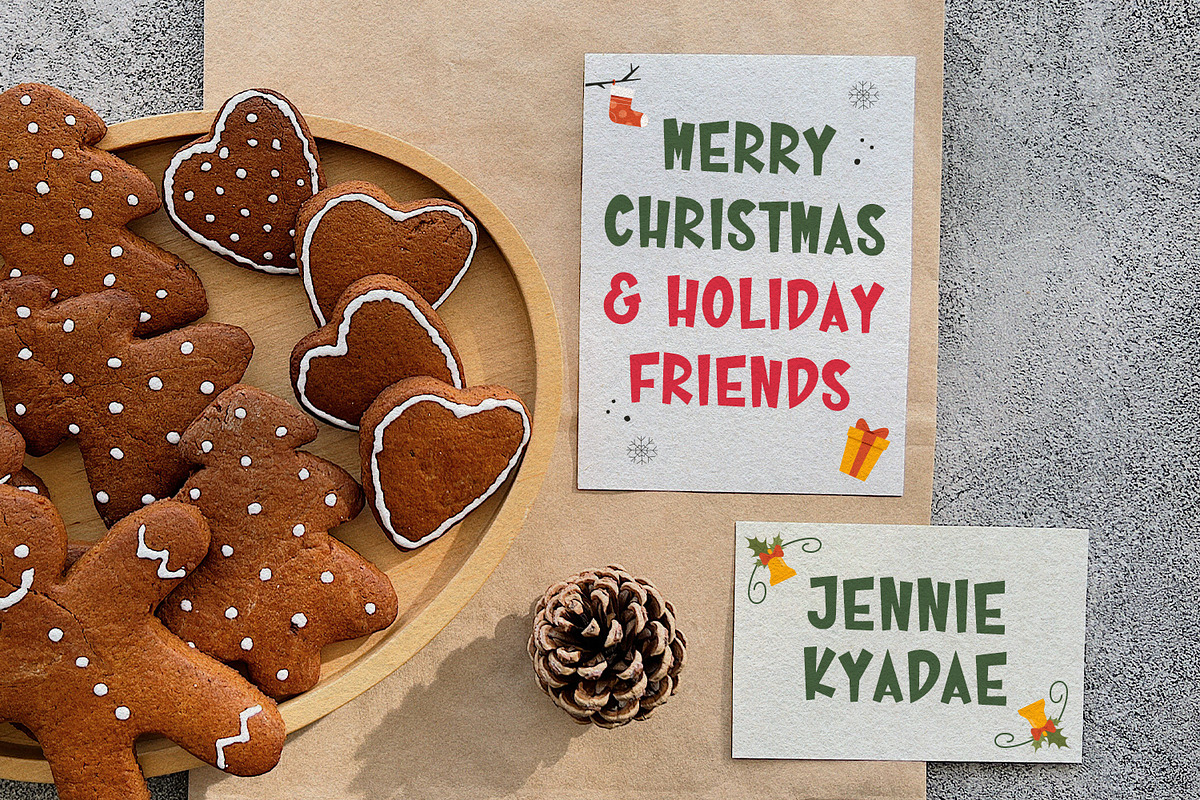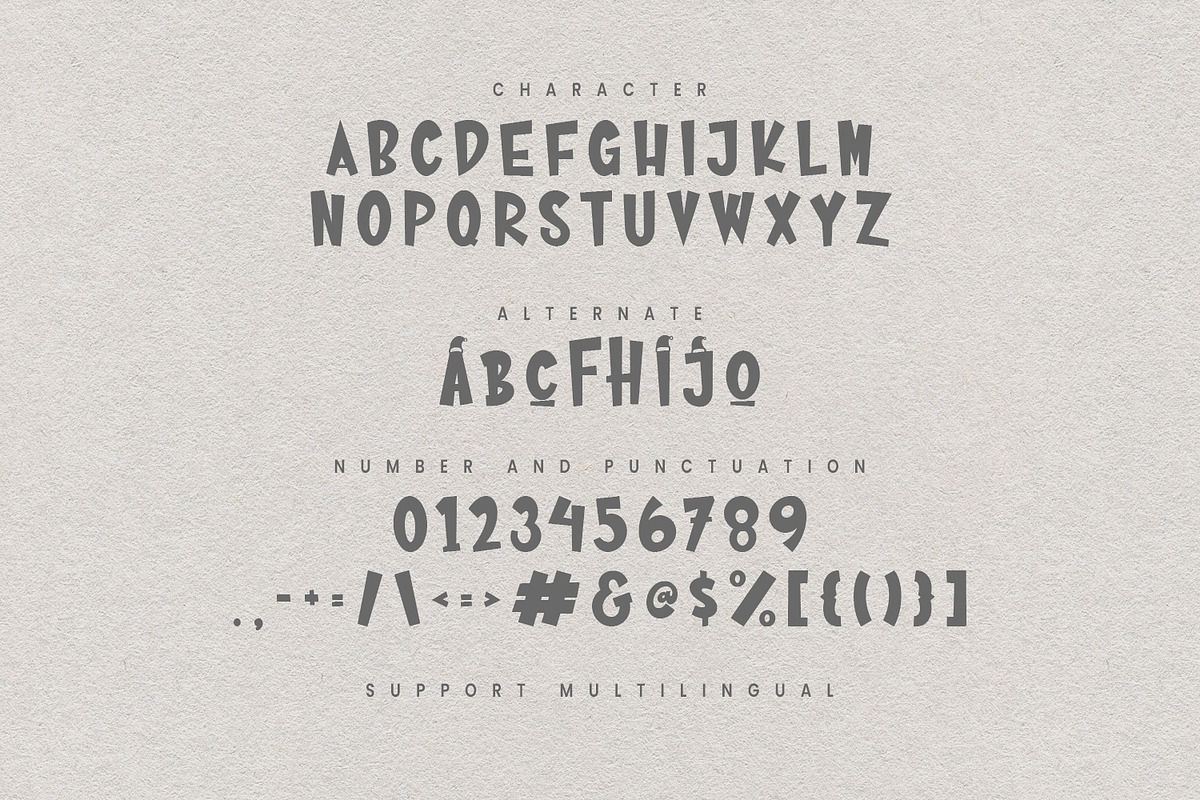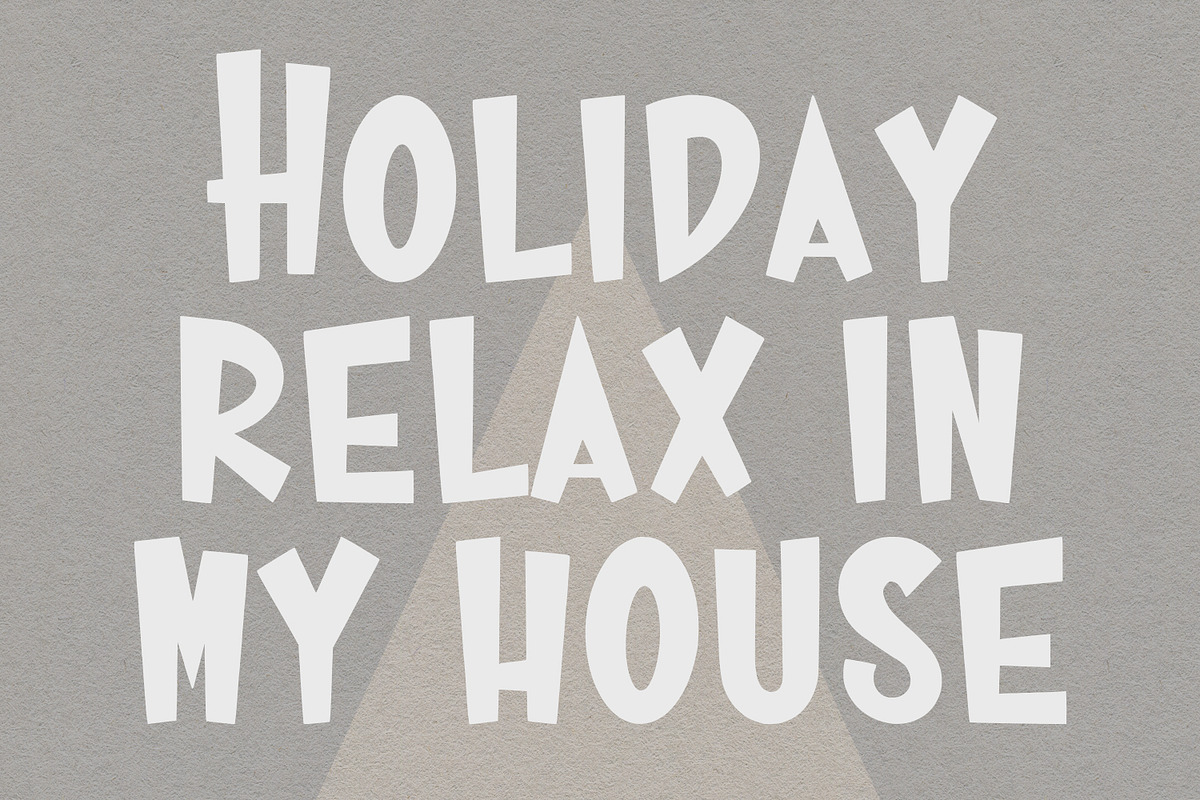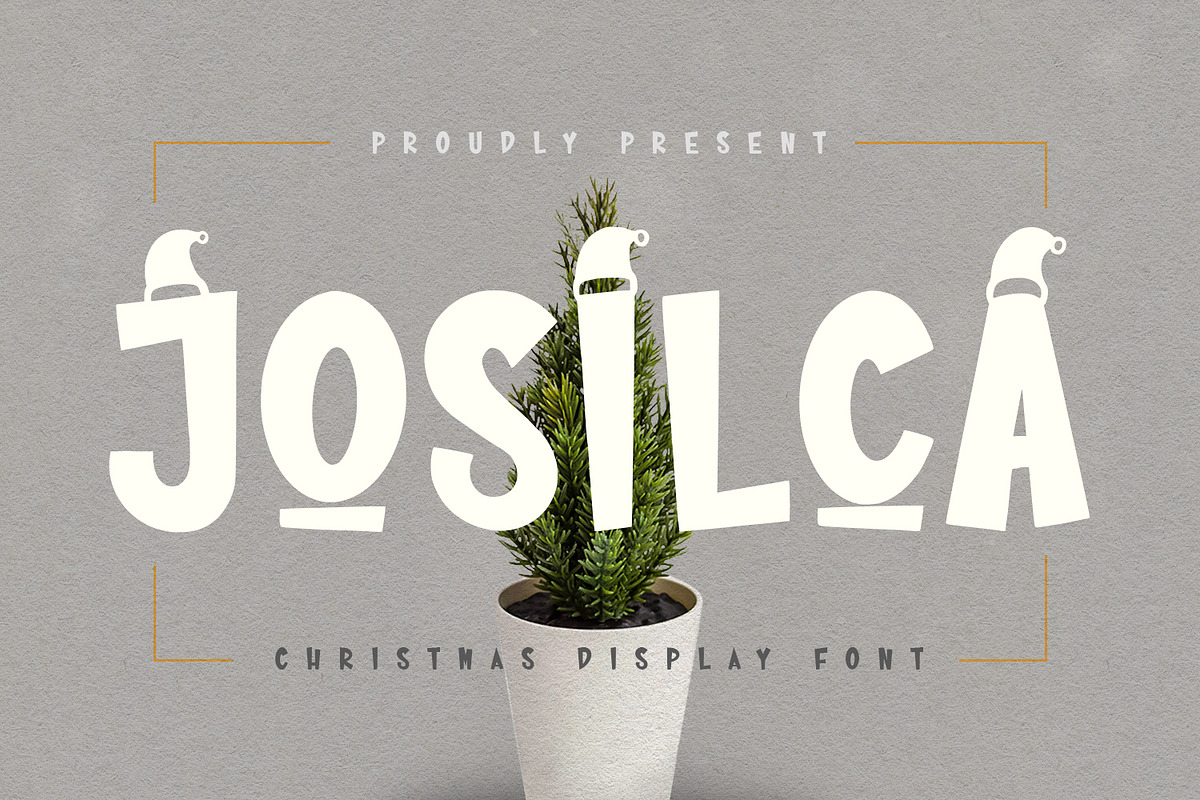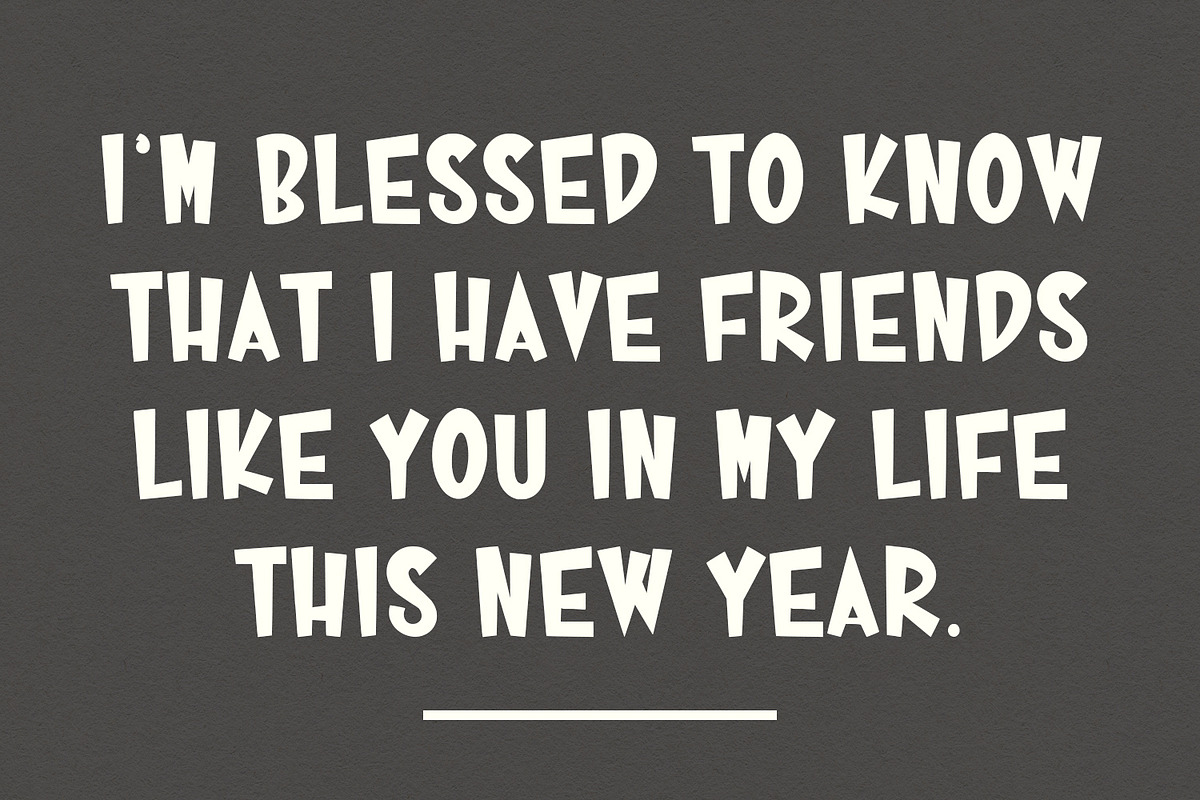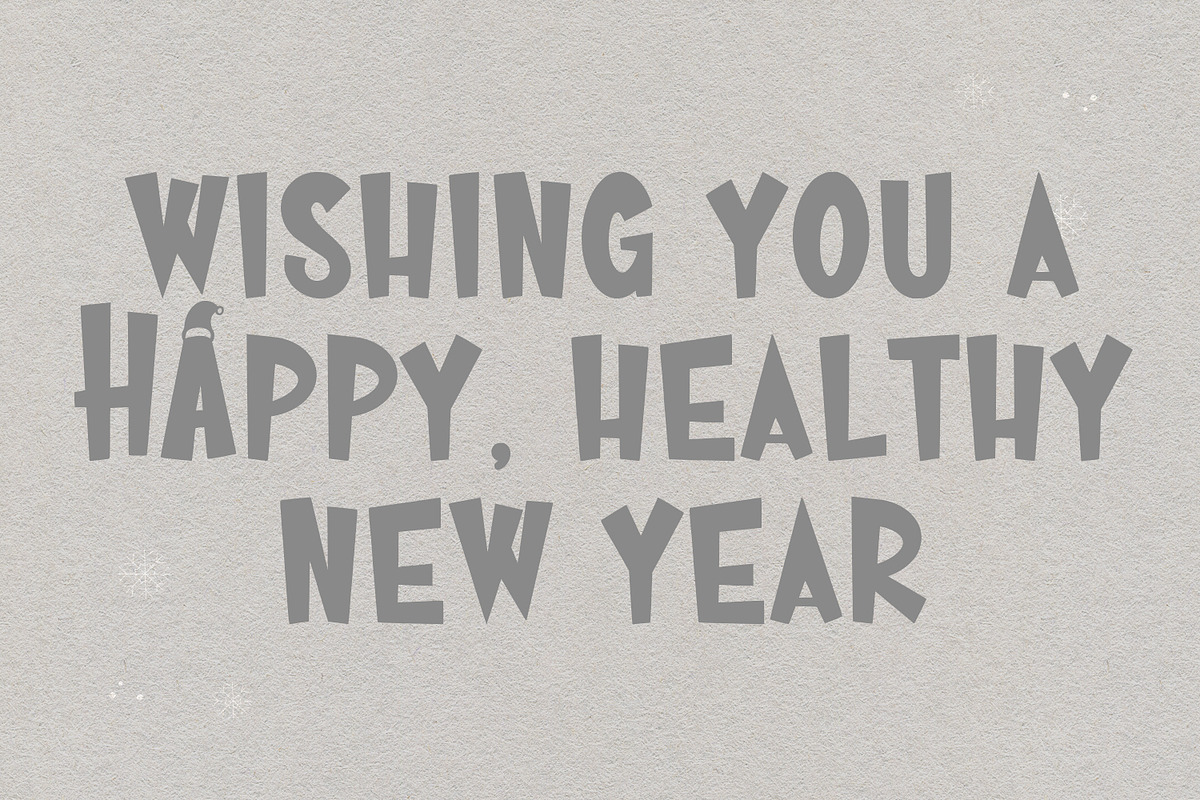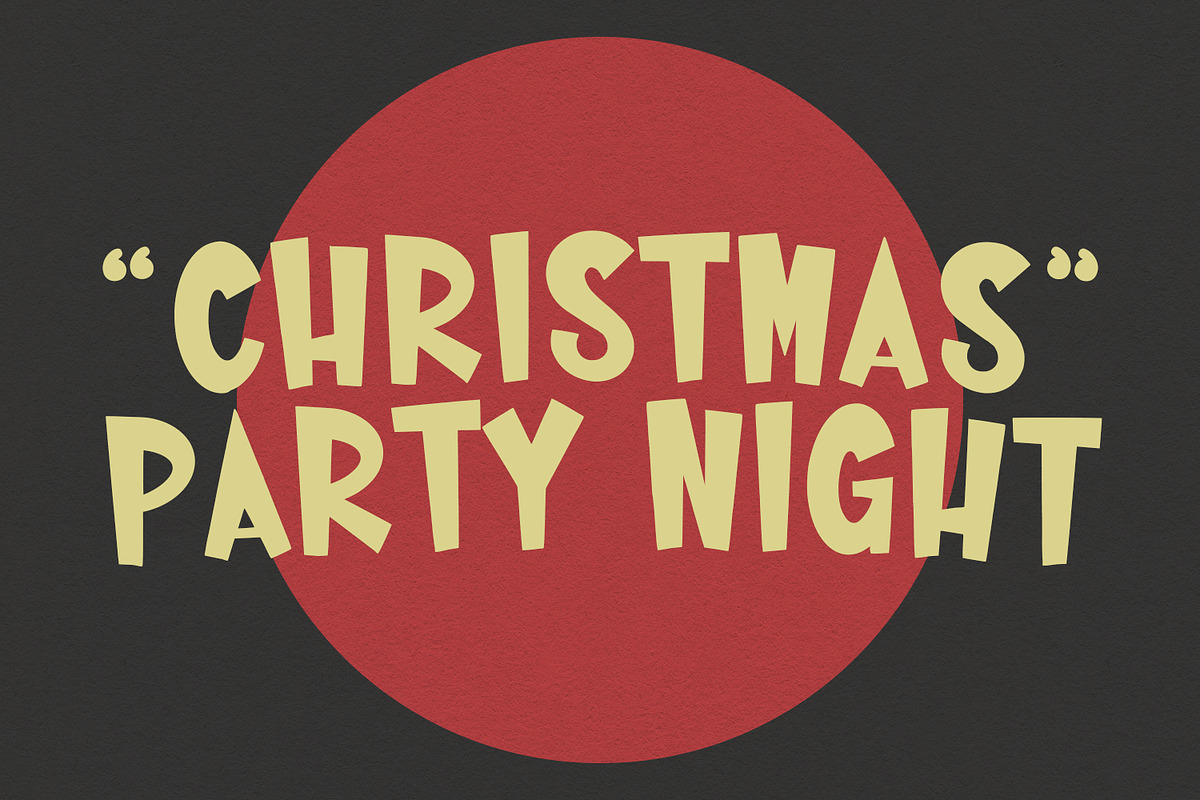
Josilca Christmas Display Font
Josilca is a modern christmas seasonal font. With bold stroke, fun character with a bit of alternate. To give you an extra creative work. Josilca font support multilingual language. This font is good for logo design, Social media, Movie Titles, Books Titles, a short text even a long text letter and good for your secondary text font with sans or serif. Make a stunning work with Josilca font.